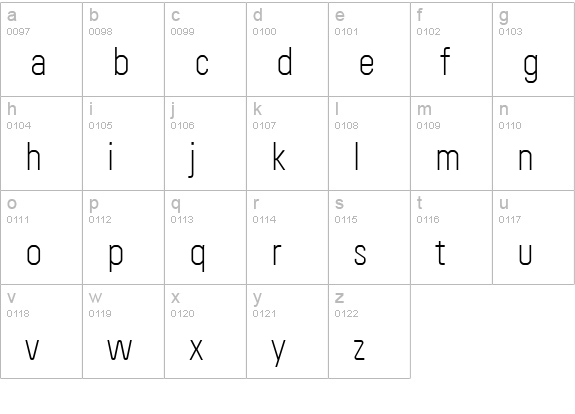
Order Light is a refined, elegant variant in the Order typeface family \xE2\x80\x94 well suited to elegant body text, refined sub-headings, and luxury branding.
Introducing Order Light font - a sleek and modern typeface that exudes elegance and sophistication. With its clean lines and minimalist design, Order Light font is perfect for adding a touch of class to your projects. Whether you're designing a logo, creating a website, or crafting a flyer, this versatile font is sure to make a statement. What's even better is that Order Light font is available for free download at FontsMarket.com. Simply visit the website and start using this gorgeous font in your designs today. Don't miss out on the opportunity to enhance your projects with the beauty and simplicity of Order Light font.